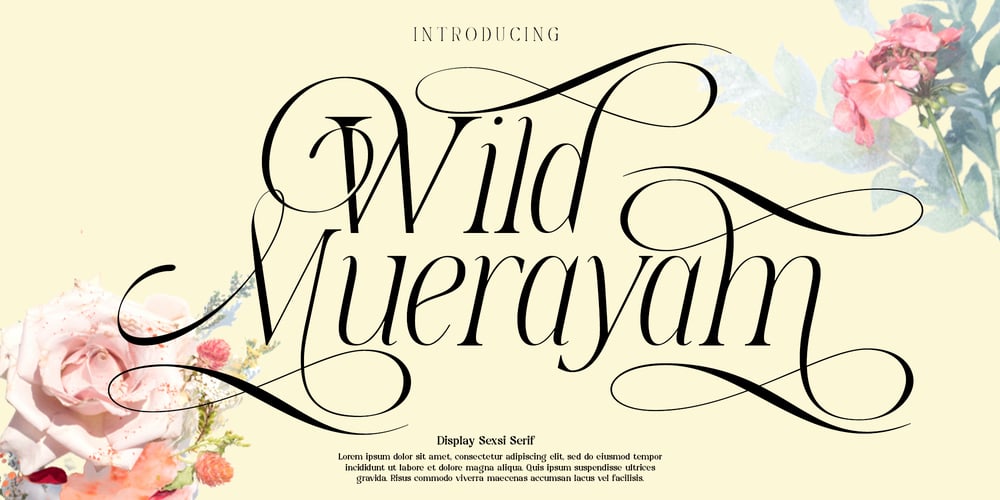
Wild Muerayam Font Family was designed by Arif Fadilah and published by Luhop Creative. Wild Muerayam contains 2 styles and family package options. Wild Muerayam is an elegant, modern and functional unique featuring a calm text and an expressive display. This font looks harmonious in books and other periodicals, on posters or on magazine covers. The scope is not limited to the printing industry, because Wild Muerayam looks aesthetically pleasing wherever text is used.Wild Muerayam a serif display font with a modern yet luxurious style. Aesthetic and unique letterforms, as well as soft curves and wild shape of the letters make this font so iconic.Wild Muerayam Features: Uppercase and lowercase Multilingual Numerals Punctuation PUA Encoded Alternates Ligatures To be able to access alternative fonts, make sure the software you use can support opentype features such as Microsoft Word, Paint, Adobe, Corel draw, Cricut and other applications.I hope you enjoy!